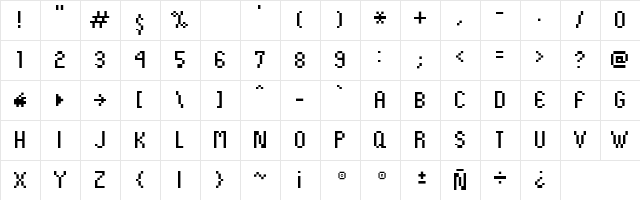
Kovensky-medium Medium
Design Context for Kovensky-medium Typeface
Kovensky-medium is a composed and adaptable typeface that performs quietly and consistently across a wide range of design contexts.